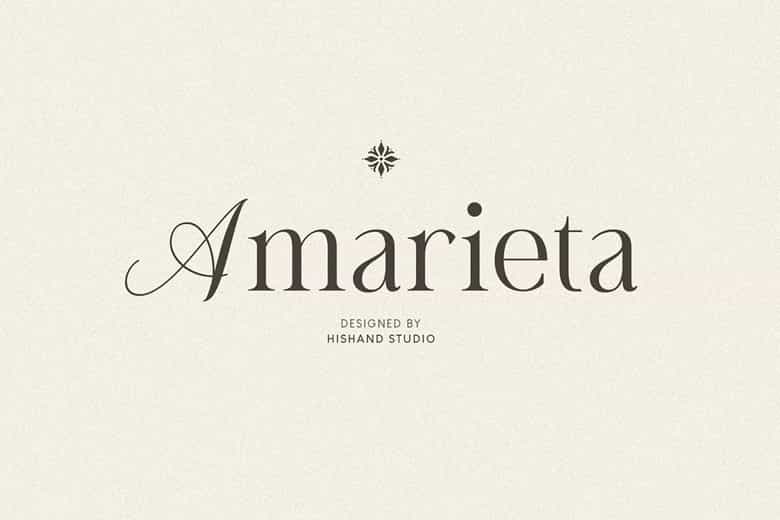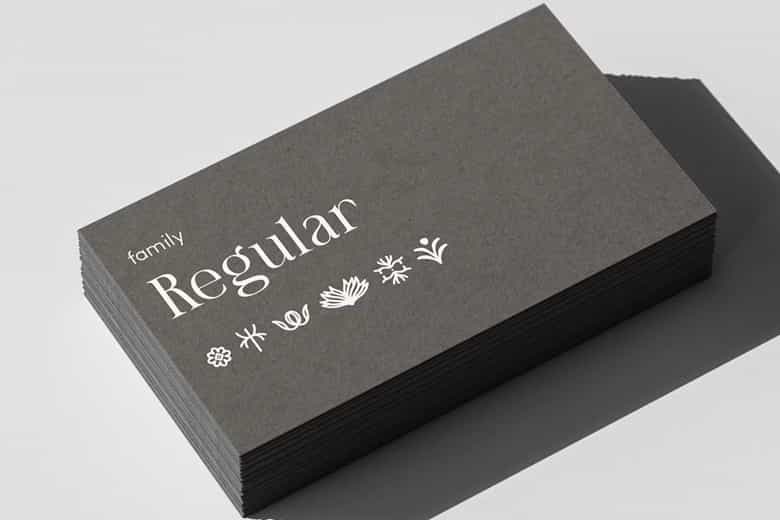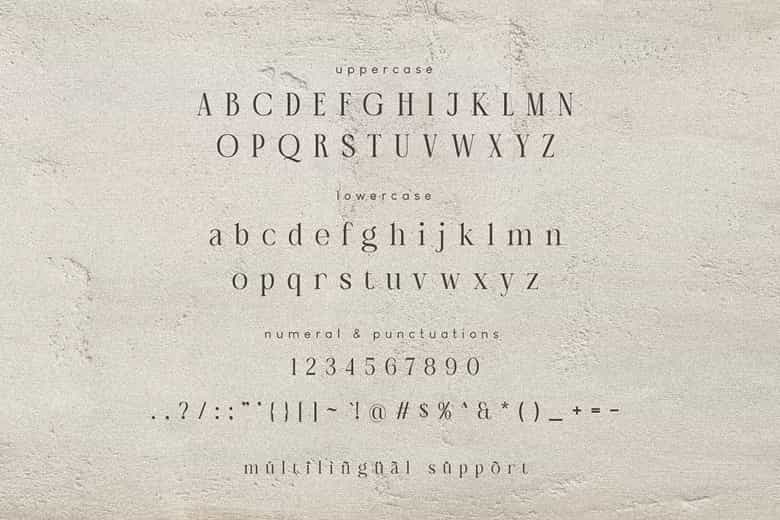
Amarieta is modern serif typeface, which is a blend of clean serif with a touch of script like curves. Targeted at high-end use, it provides elegance, nice transitions, elegant and aesthetic rounded terminals, and harmonic shapes of the character. The submitted script influence is well used and tasteful, similarly to adding character without detracting from the writing style. Amarieta’s thick and thin letters and integrated stroke make it suitable for logo designs, calling cards, anniversary invitations and quality packaging designs.